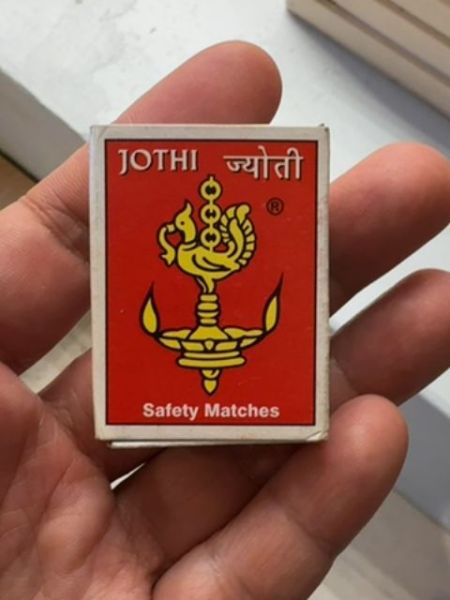
Jothi Safety Matches
Jothi Safety Matches are used for lighting fires, stoves, or candles safely and effectively.
Country of Origin
India
Typography
The typography features a bold, sans-serif font for 'JOTHI' and 'Safety Matches,' creating a strong visual impact against the red background. The addition of Hindi script next to the brand name acknowledges cultural diversity and adds an authentic touch, balancing traditional elements with modern typography.
Packaging
The packaging features a striking red background that prominently displays a traditional lamp illustration in yellow, symbolizing light and knowledge. The cardboard material is compact and easily portable, fitting comfortably in the palm of a hand.
Facts
- Popular in Indian households.
- Recognizable for its distinct red and yellow coloring.
- Includes bilingual branding in English and Hindi.